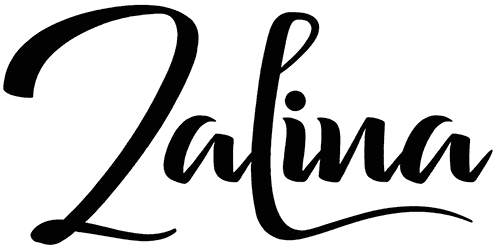
Zalina Font
It is a good surprise if you design your modern layout with cool manuscript words, and this handwritten font would be a perfect choice to make it happen. Zalina font has a smooth form, but it doesn’t cover numbers and punctuation marks. You can make a vivid nightclub party flyer with this calligraphy font and showcase your unique presentation.